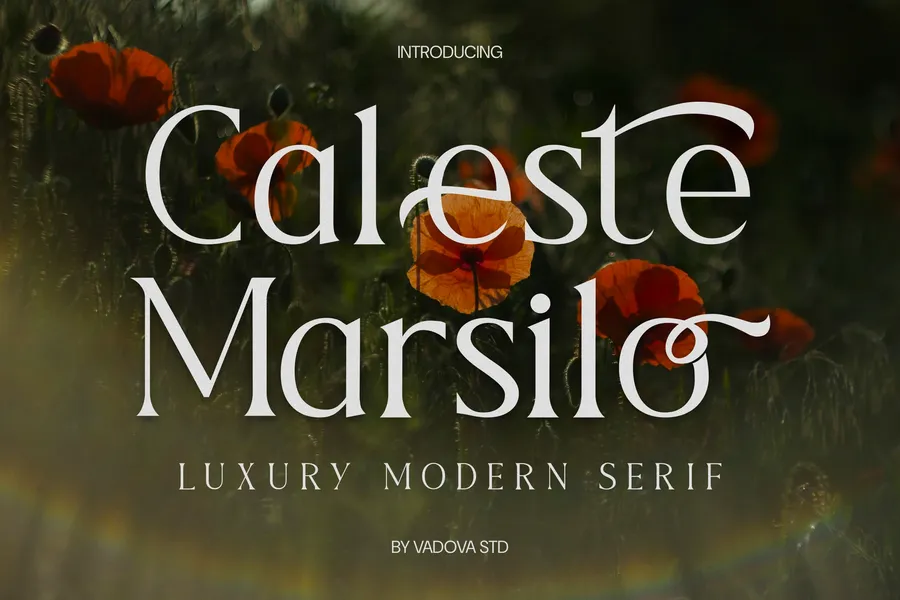
Caleste Marsilo is a luxury modern serif font designed to exude sophistication and elegance in every character. Its balanced proportions and refined detailing make it ideal for upscale branding, editorial layouts, packaging, and high-end promotional materials. Caleste Marsilo blends traditional serif charm with a modern edge, perfect for designers seeking a timeless yet stylish font.